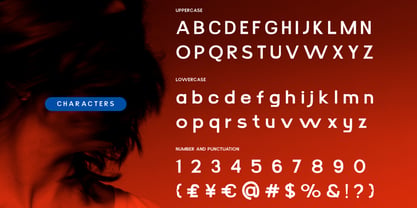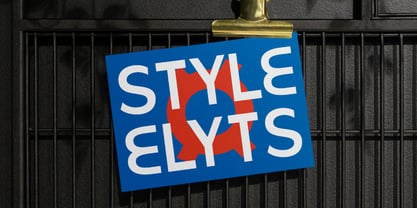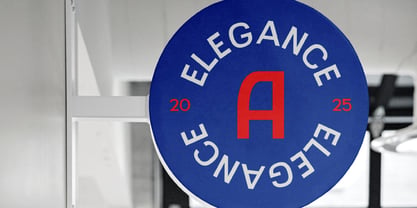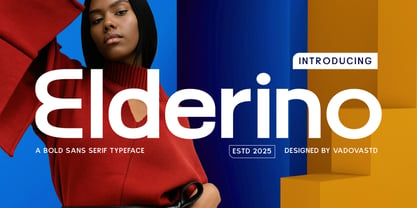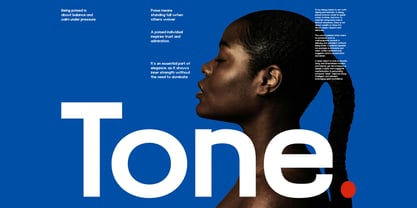
Elderino
by Vadova Std
The Elderino Font Family and published by Vadova Std. Elderino contains 1 styles. More about this family
Elderino is a bold sans serif typeface that blends modern minimalism with stylish sophistication. Designed for impactful headlines and clean branding, Elderino is ideal for fashion lookbooks, editorial layouts, modern packaging, tech branding, and creative portfolios. Its sleek curves and geometric structure make it highly versatile for both digital and print use. Whether for logo design, UI/UX interfaces, or high-end campaigns, Elderino delivers a confident and contemporary visual voice.